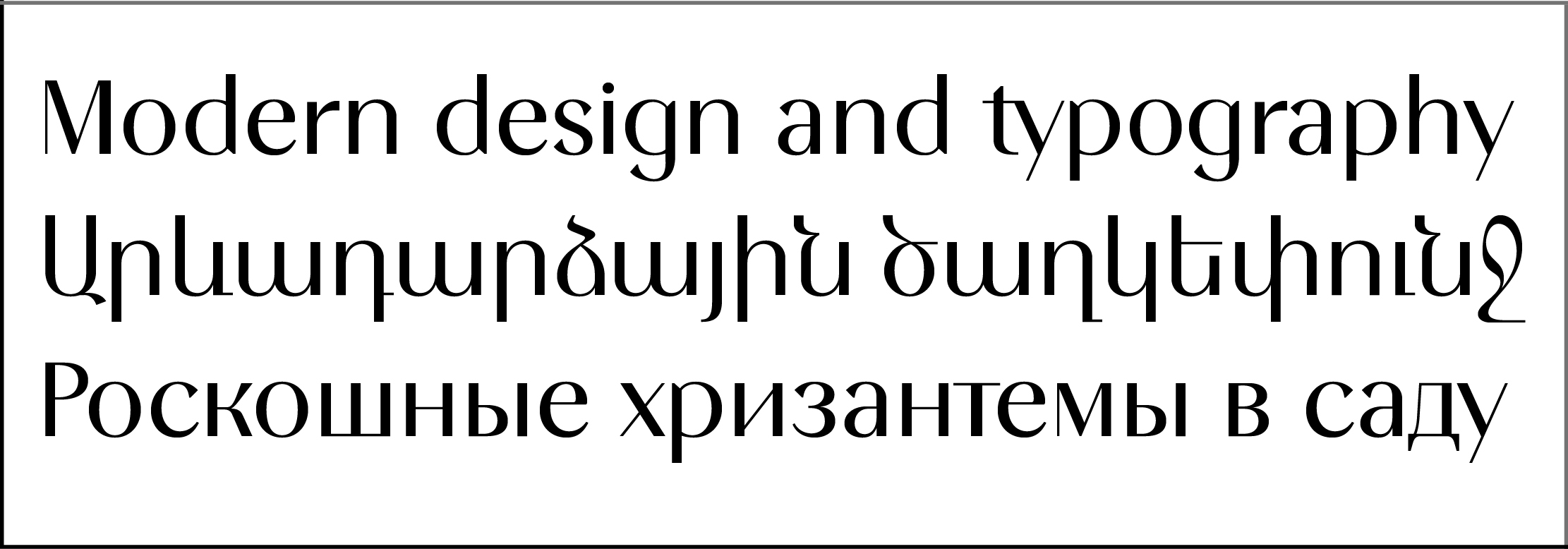
Display typefaces, Edik Ghabuzyan
GHEA Mariam Display Medium
GHEA Mariam Display is a Display font for using in titles, posters and advertisements.
It included Armenian, Cyrillic and Latin language systems.
The font includes Basic and many Advanced Ligatures for Latin and Armenian.
GHEA Mariam Display is Sans Serif font and looks very nice in small and big sizes.